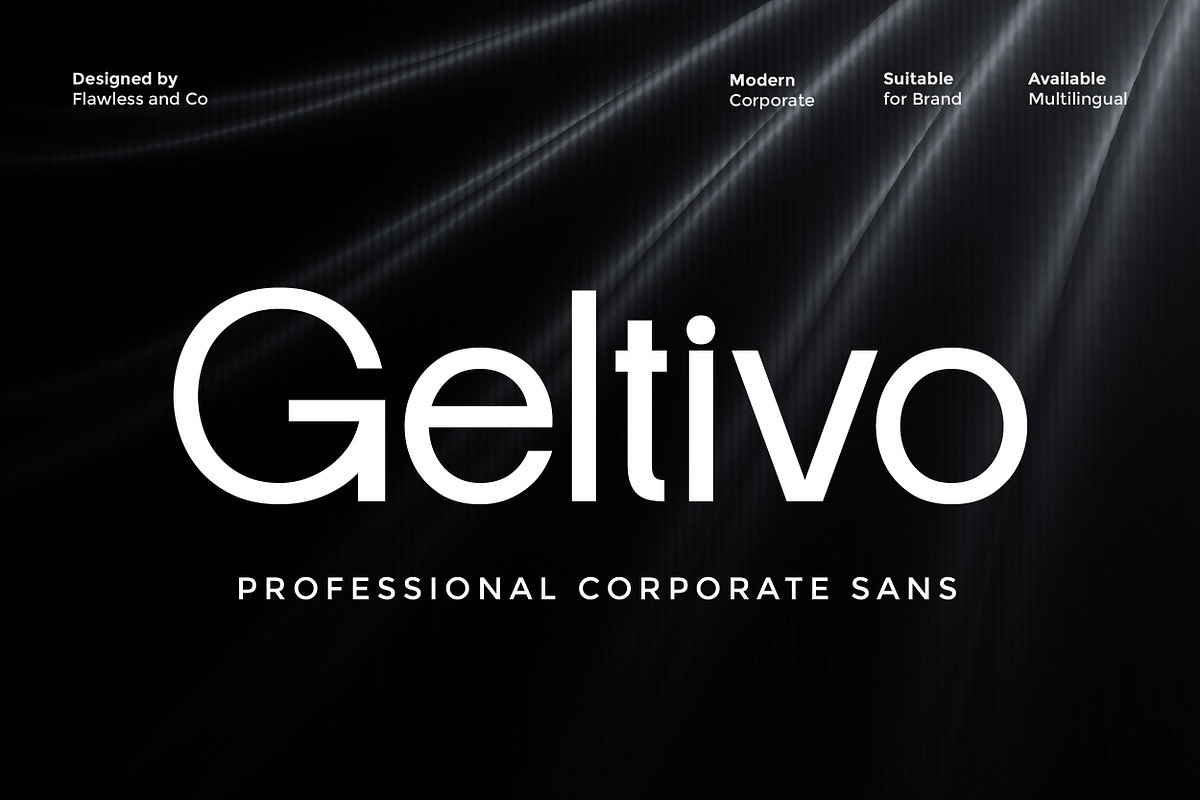
Geltivo Font
Geltivo Font is a premium-quality font developed to enhance your work with a polished, modern, and visually elevated look. Geltivo is a professional corporate sans serif font designed to deliver clarity, confidence, and a modern business aesthetic. With its clean structure, balanced proportions, and refined simplicity, Geltivo is perfect for projects that require a strong, trustworthy, and contemporary typographic presence.
This font is built to perform exceptionally well across both digital and print media. Its clear letterforms ensure excellent readability, while the modern corporate feel makes it suitable for branding that aims to look professional, reliable, and forward-thinking.